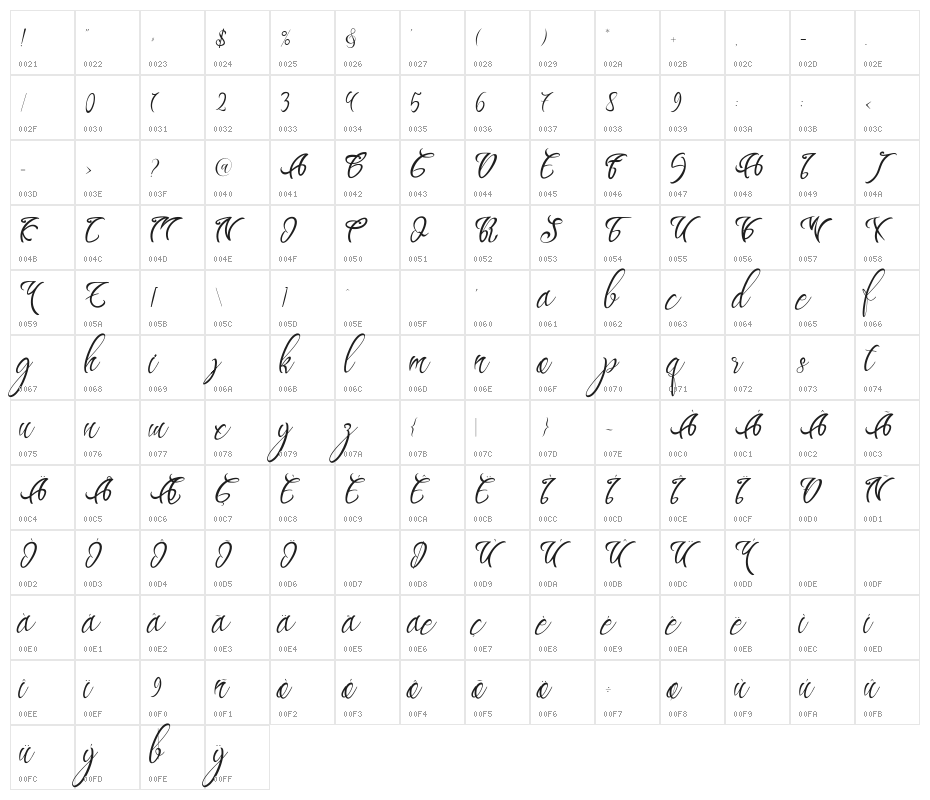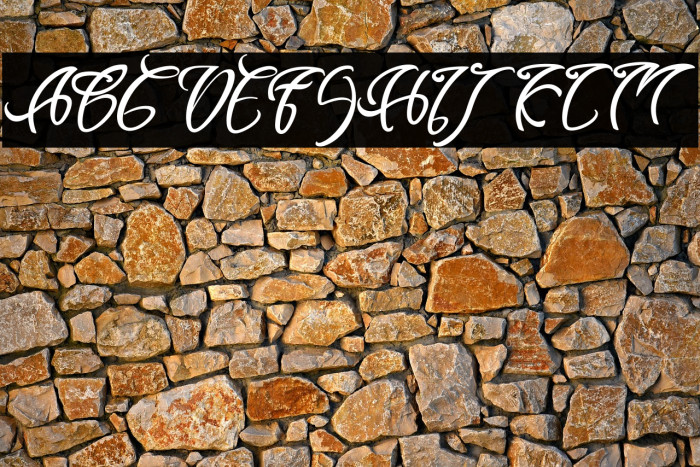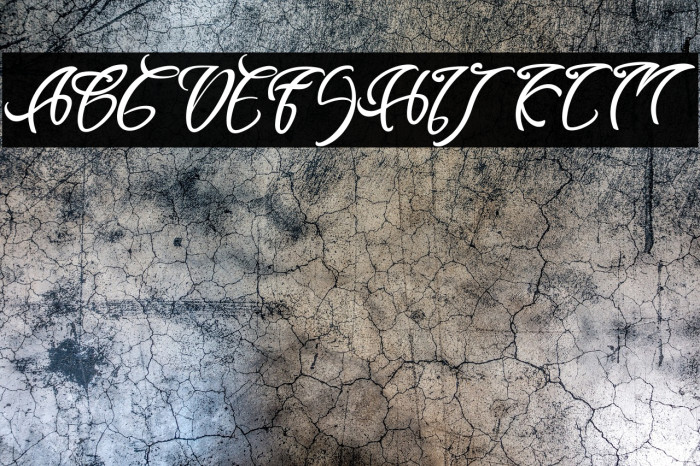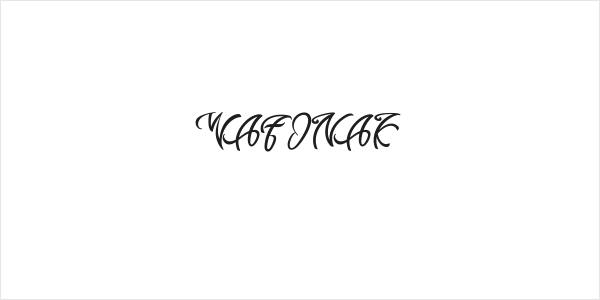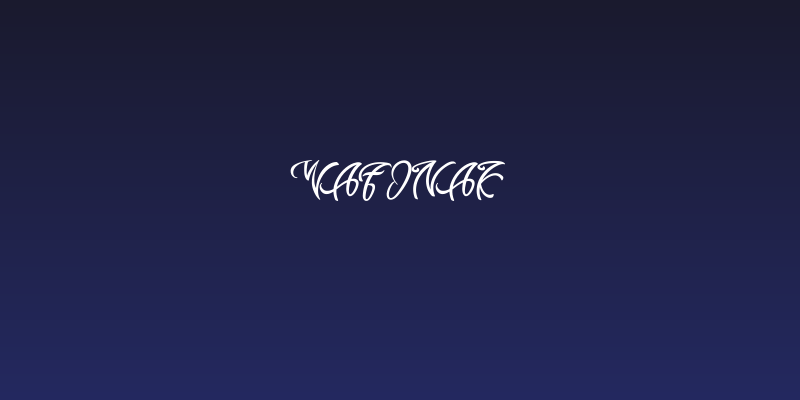
WAFONAK Font
WAFONAK Description
This font exhibits a flowing, cursive style with elegant, sweeping curves and a handwritten appearance. The uppercase letters are characterized by their dramatic flourishes and loops, giving them a sophisticated and artistic flair. The lowercase letters maintain a consistent flow, with smooth connections between characters, enhancing the script-like quality. The numerals and special characters are designed to complement the overall aesthetic, featuring similar curves and embellishments. This font is ideal for projects that require a touch of elegance and personal expression.
| Overall Style | Elegant, Artistic |
| Proposed Projects | Wedding invitations, greeting cards, personal branding, and artistic posters. |